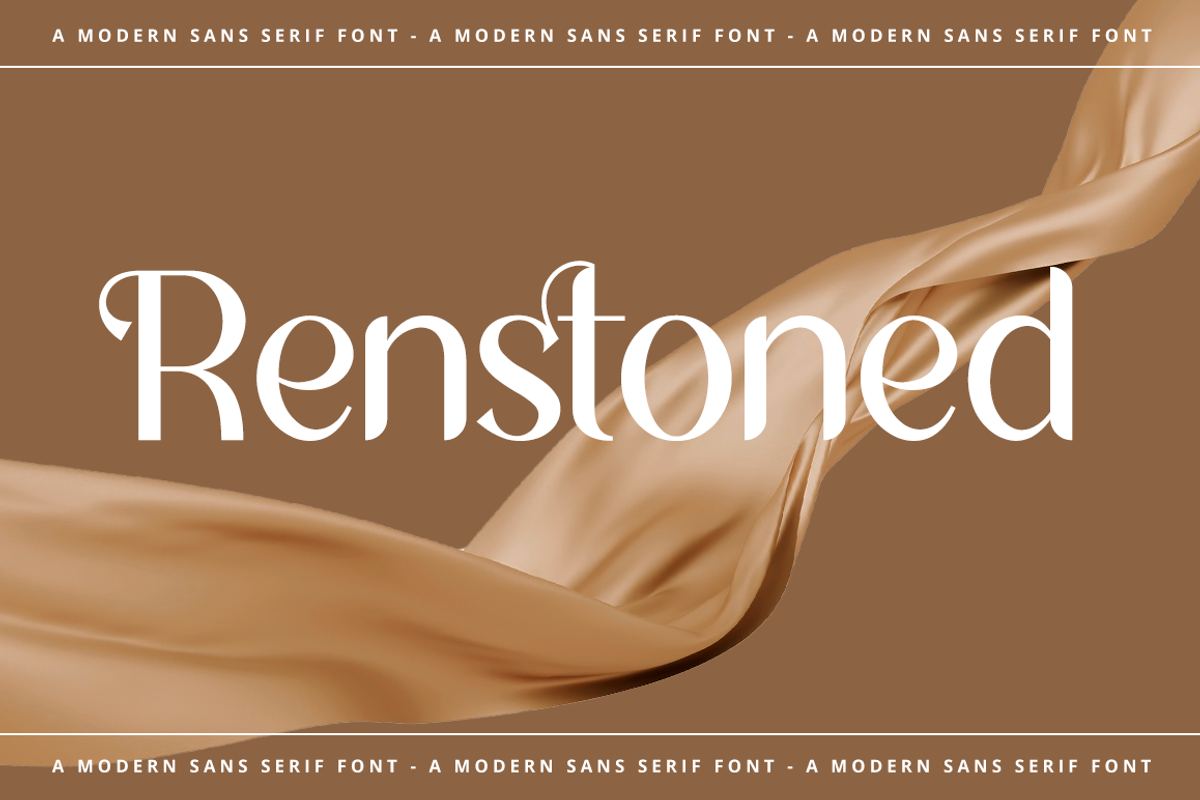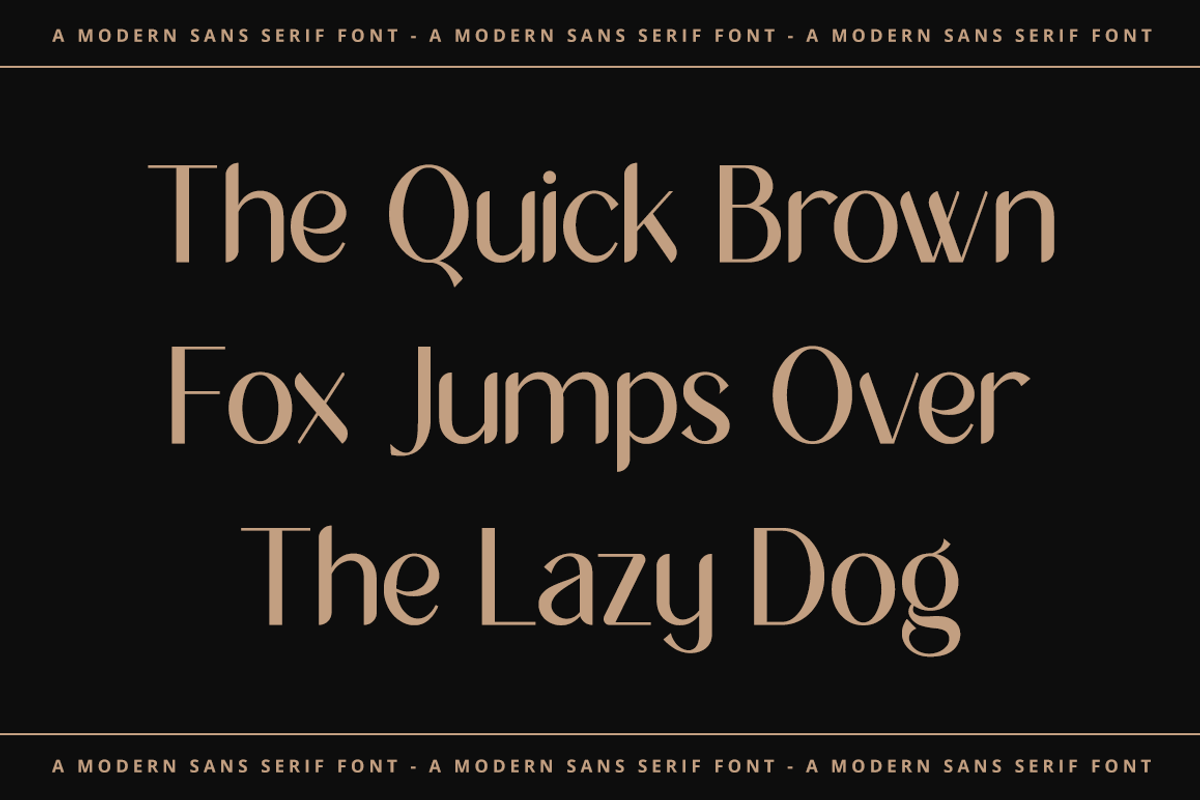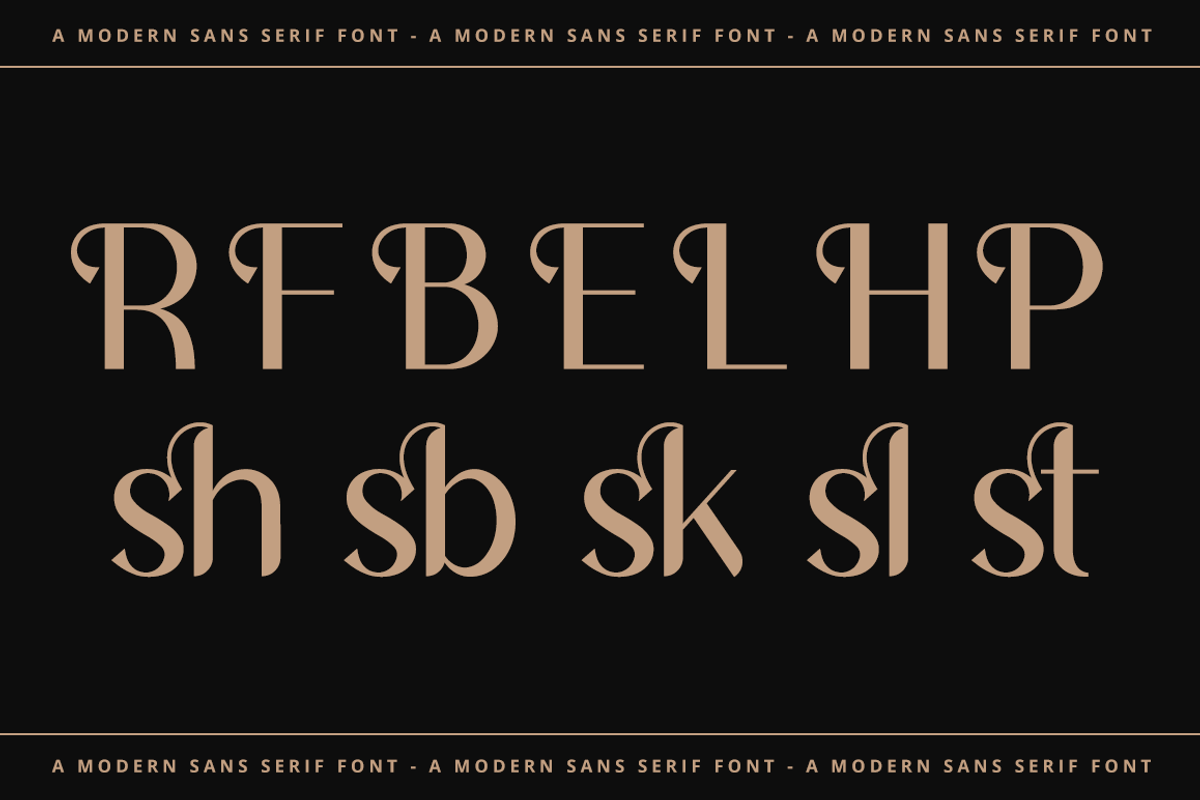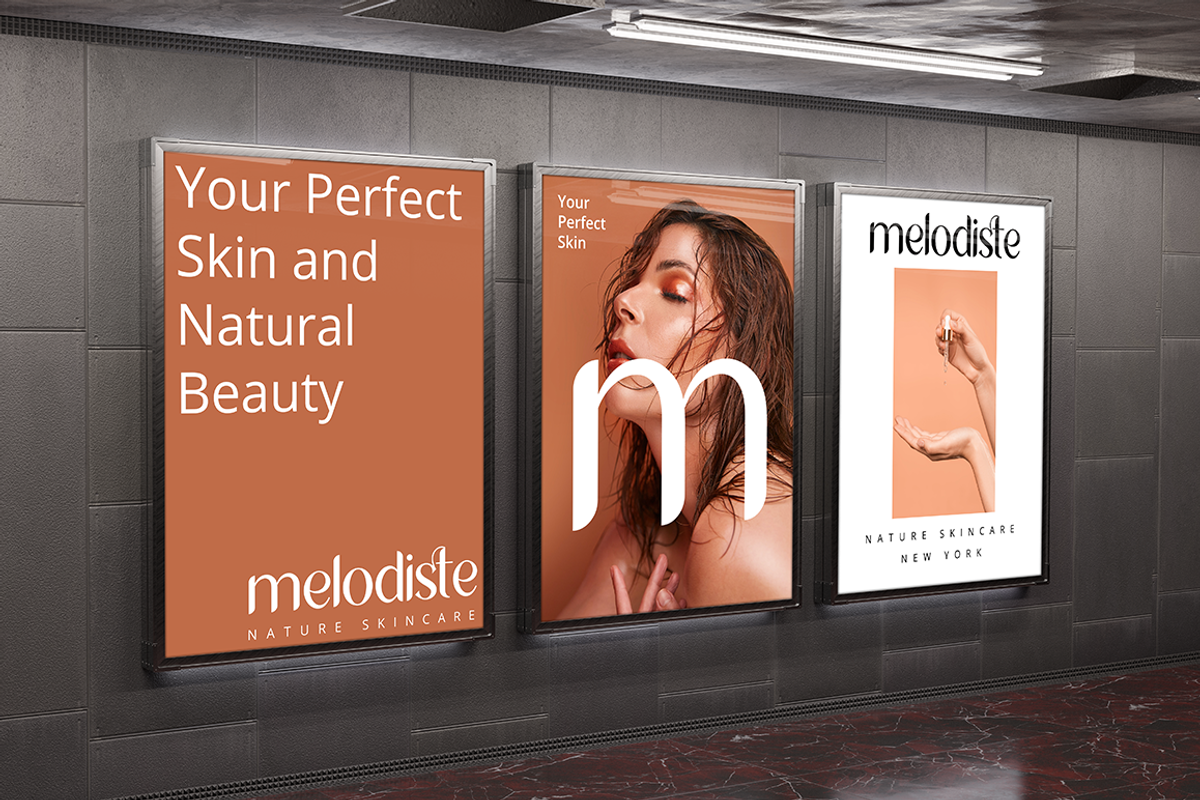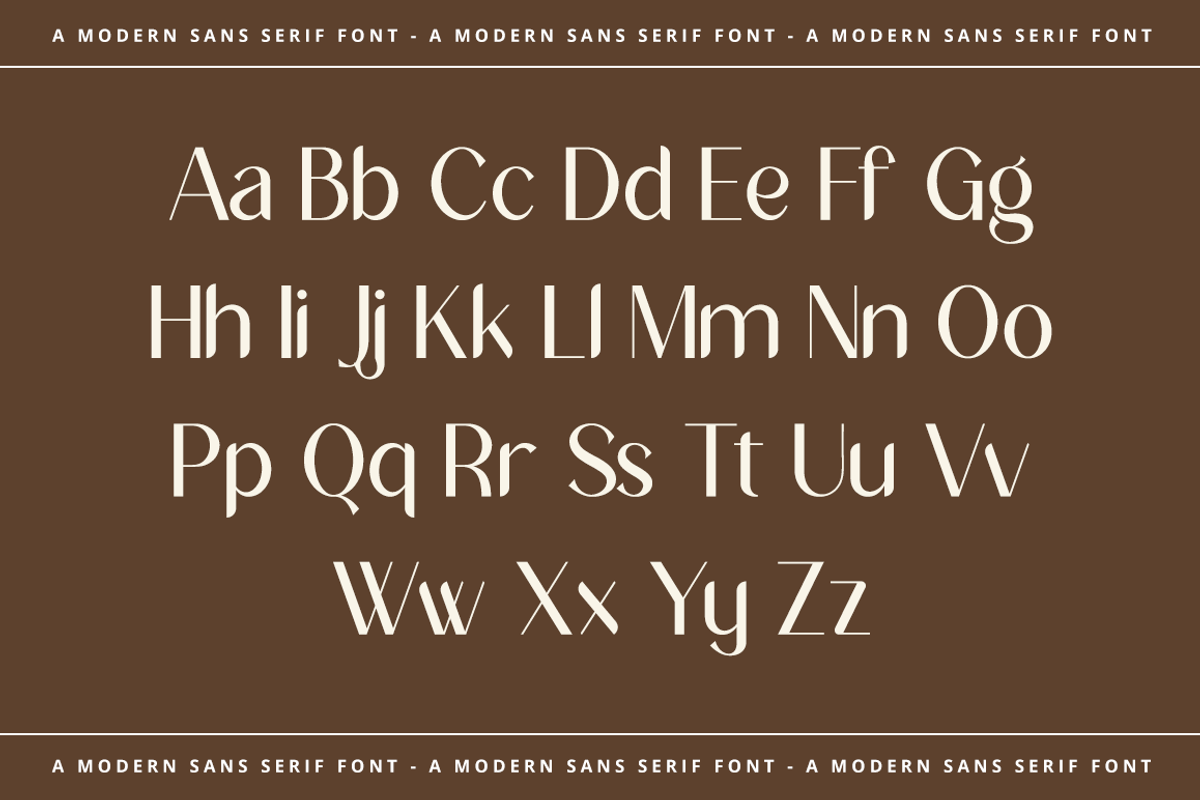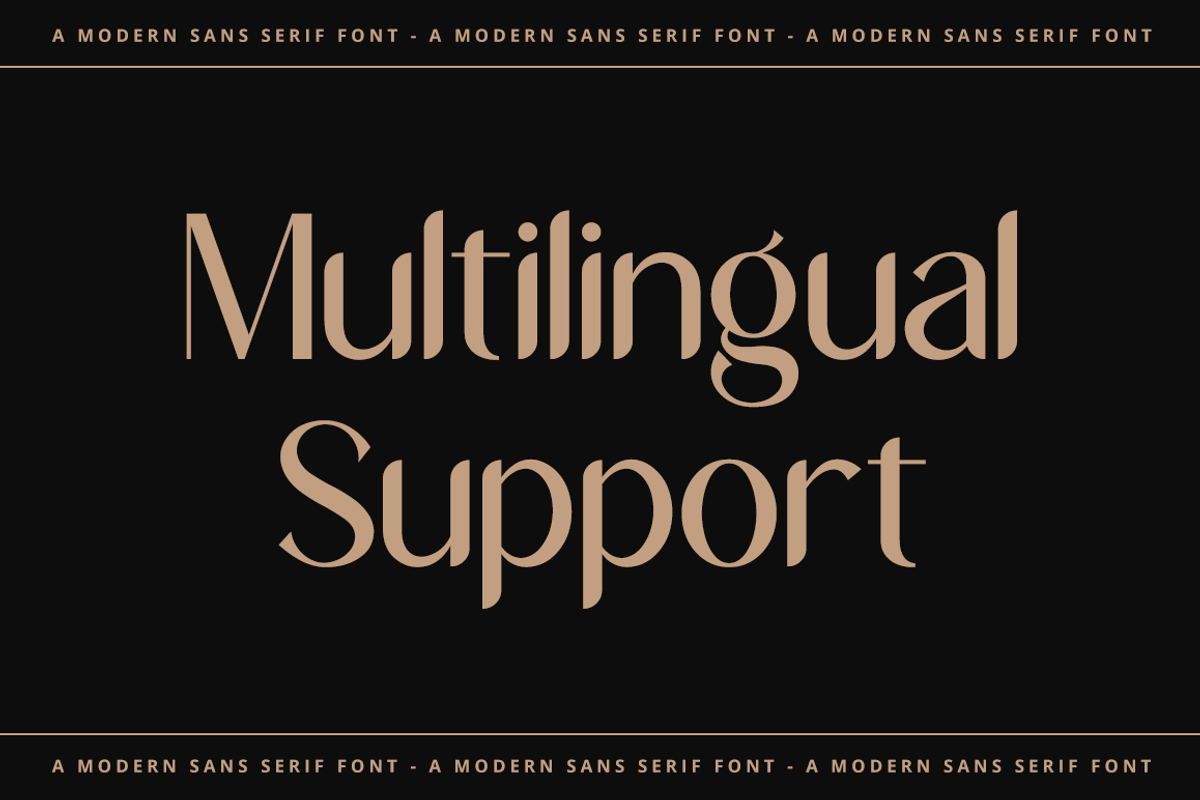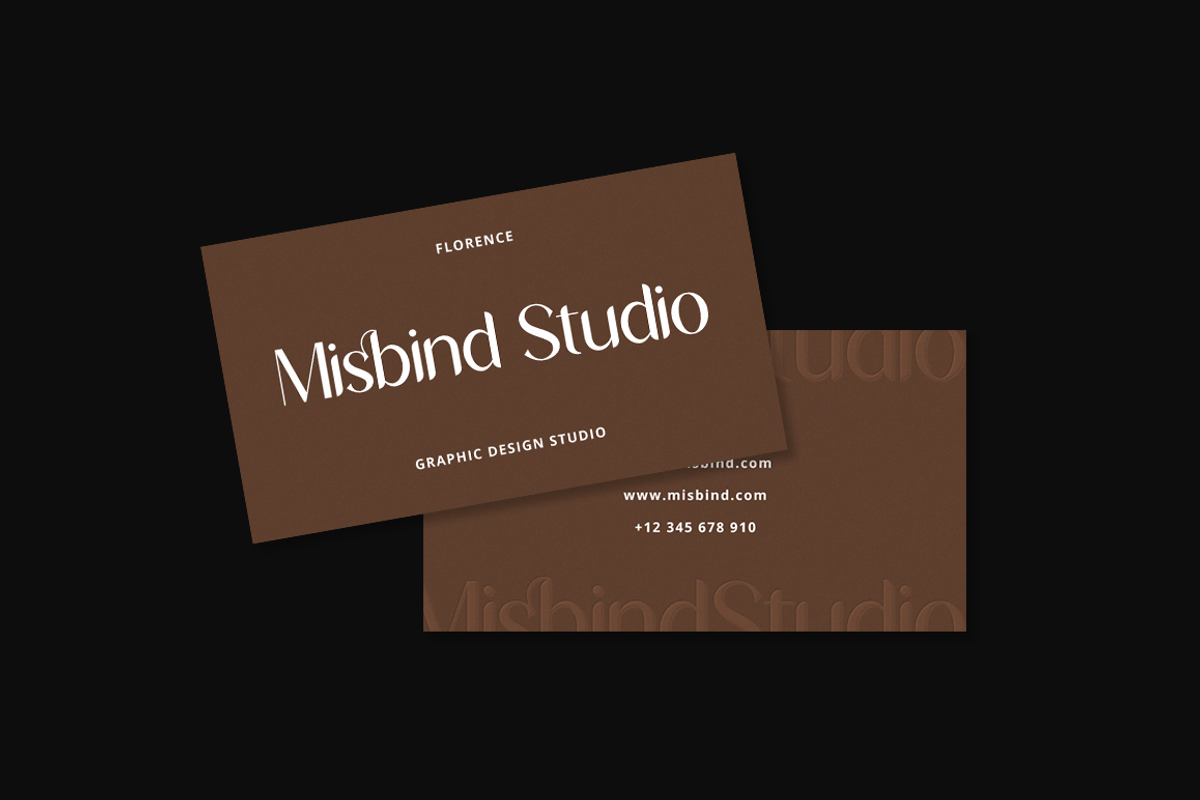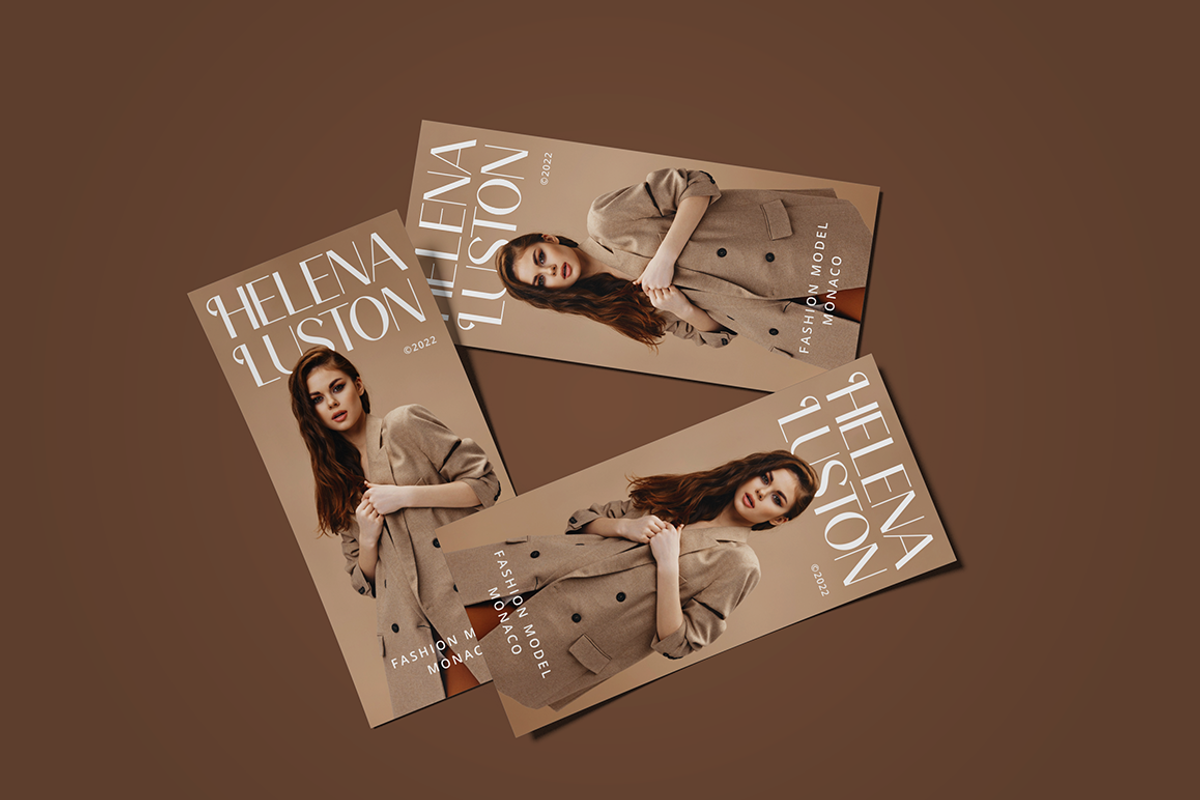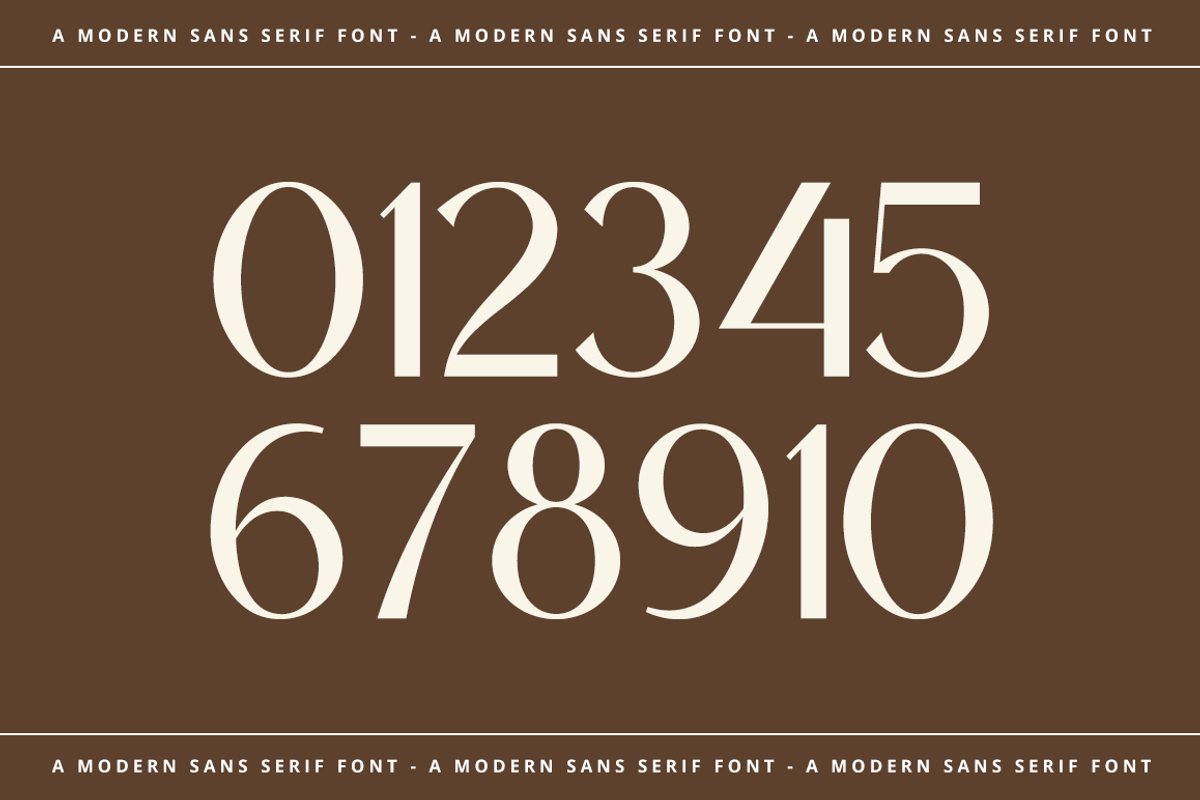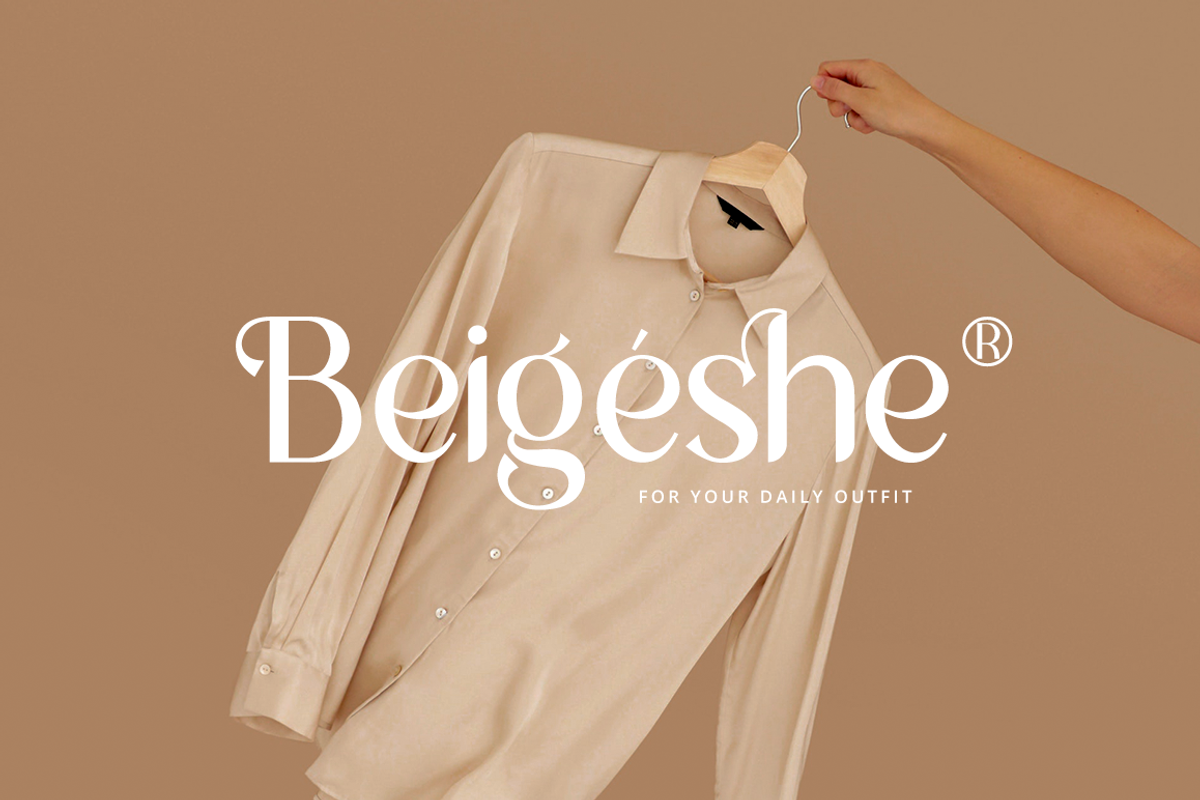
Renstoned - Elegant Sans Serif
Renstoned is an elegant and beautiful sans serif font. It will elevate a wide range of crafting ideas, from cards to branding, labels, and many more. Add it to any of your creative projects, and make them look extraordinary!